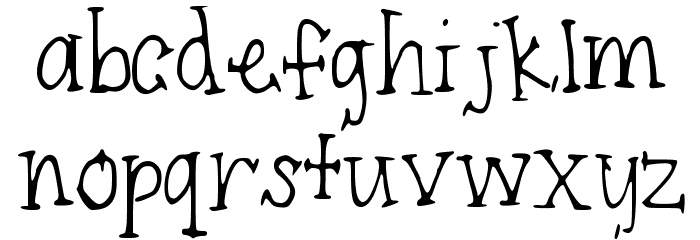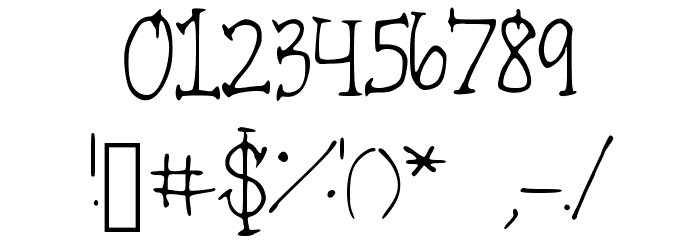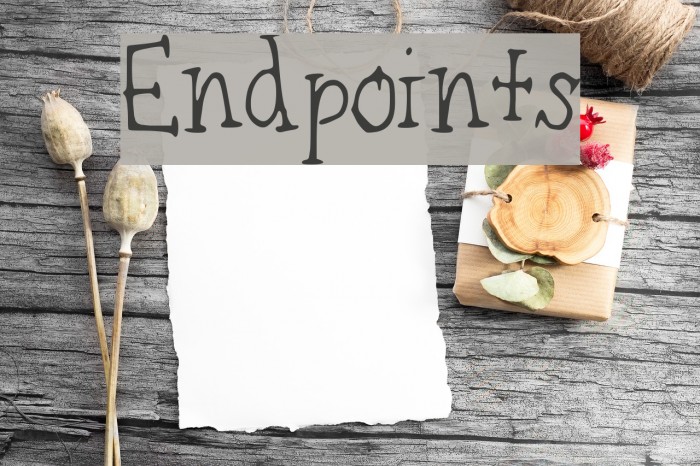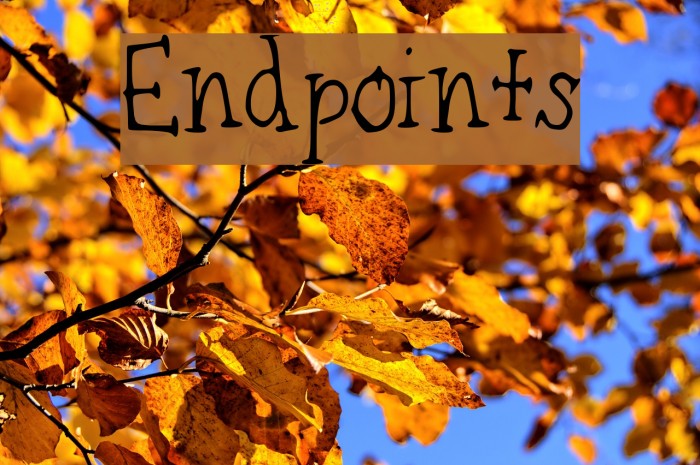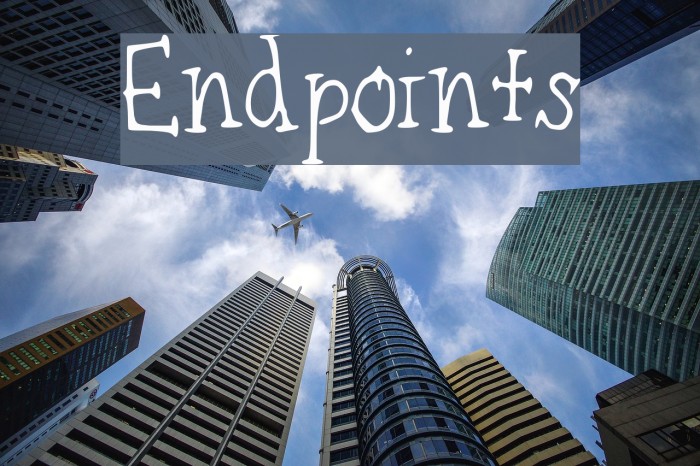
Endpoints Font
This font features a playful and whimsical design, characterized by its uneven strokes and irregular shapes. The letters have a hand-drawn quality, with quirky and exaggerated serifs that give it a unique personality. The uppercase and lowercase letters maintain a consistent style, with a slightly irregular baseline that adds to its charm. The numerals and special characters are equally distinctive, with a creative flair that makes them stand out. This font is ideal for projects that require a fun and informal touch, such as children's books, greeting cards, or creative branding.
A playful, hand-drawn font with quirky serifs and irregular shapes.
- Proposed Projects: Ideal for children's books, greeting cards, creative branding, and playful designs.
- Use Case: Headlines, Logos, Creative projects